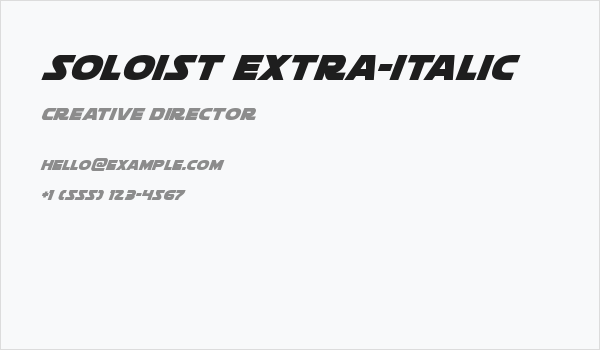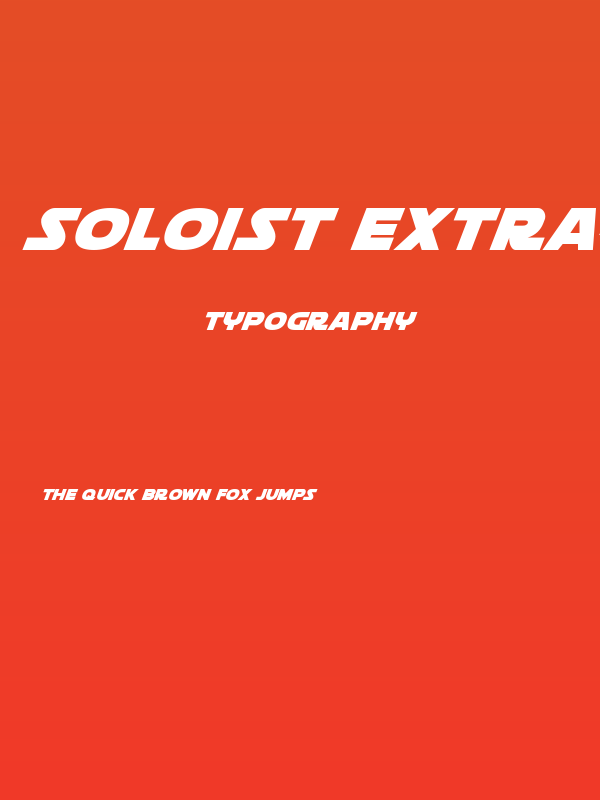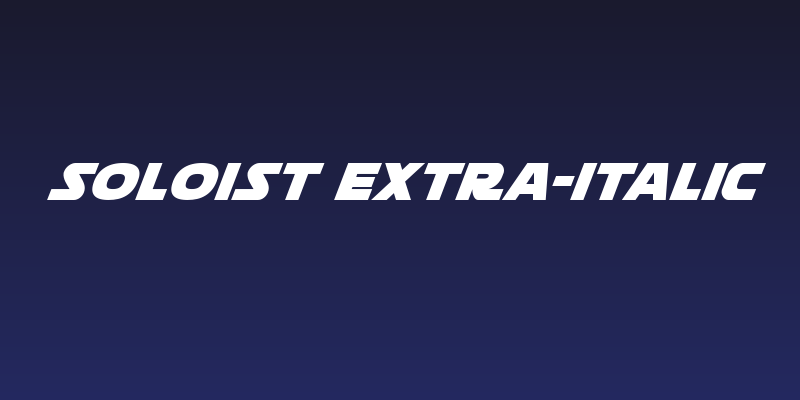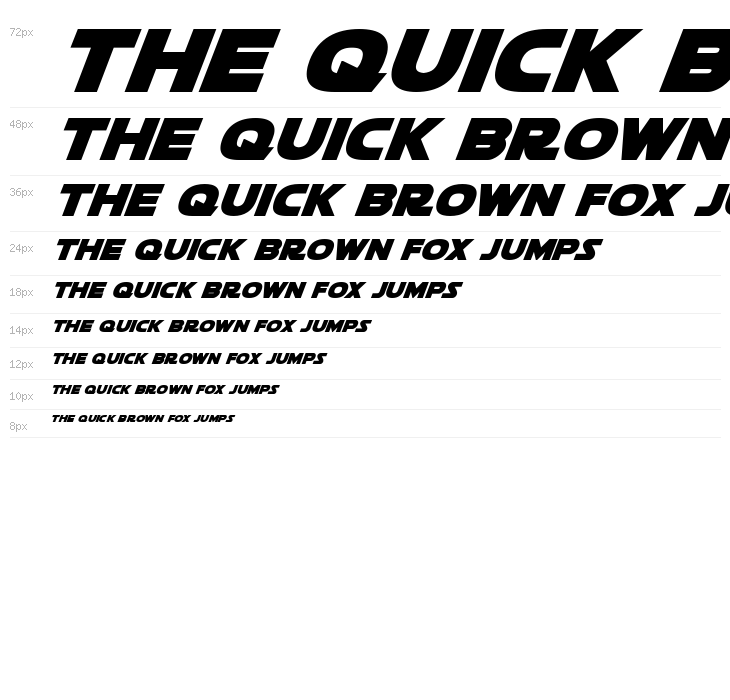
Soloist Extra-Italic Font
Soloist Extra-Italic Description
This font features a bold and dynamic style with a strong italic slant, giving it a sense of motion and energy. The characters are wide and robust, with a modern and sleek appearance. The strokes are thick, providing high contrast and making the text highly legible from a distance. The design is clean and streamlined, with sharp angles and smooth curves that add to its contemporary feel. This font is well-suited for projects that require a bold statement, such as sports branding, dynamic advertising, or modern editorial design.
| Use Case | Headlines, Logos, Advertising |
| Proposed Projects | Ideal for sports branding, dynamic advertising, modern editorial design, and bold headlines. |